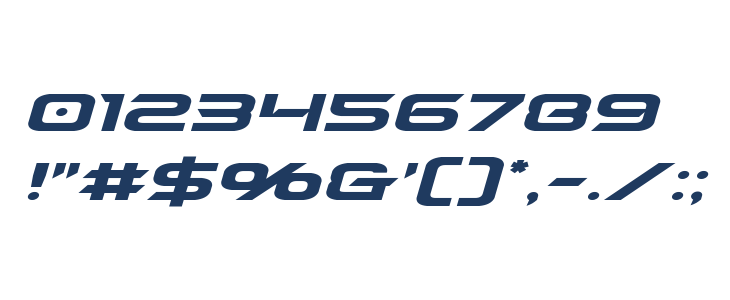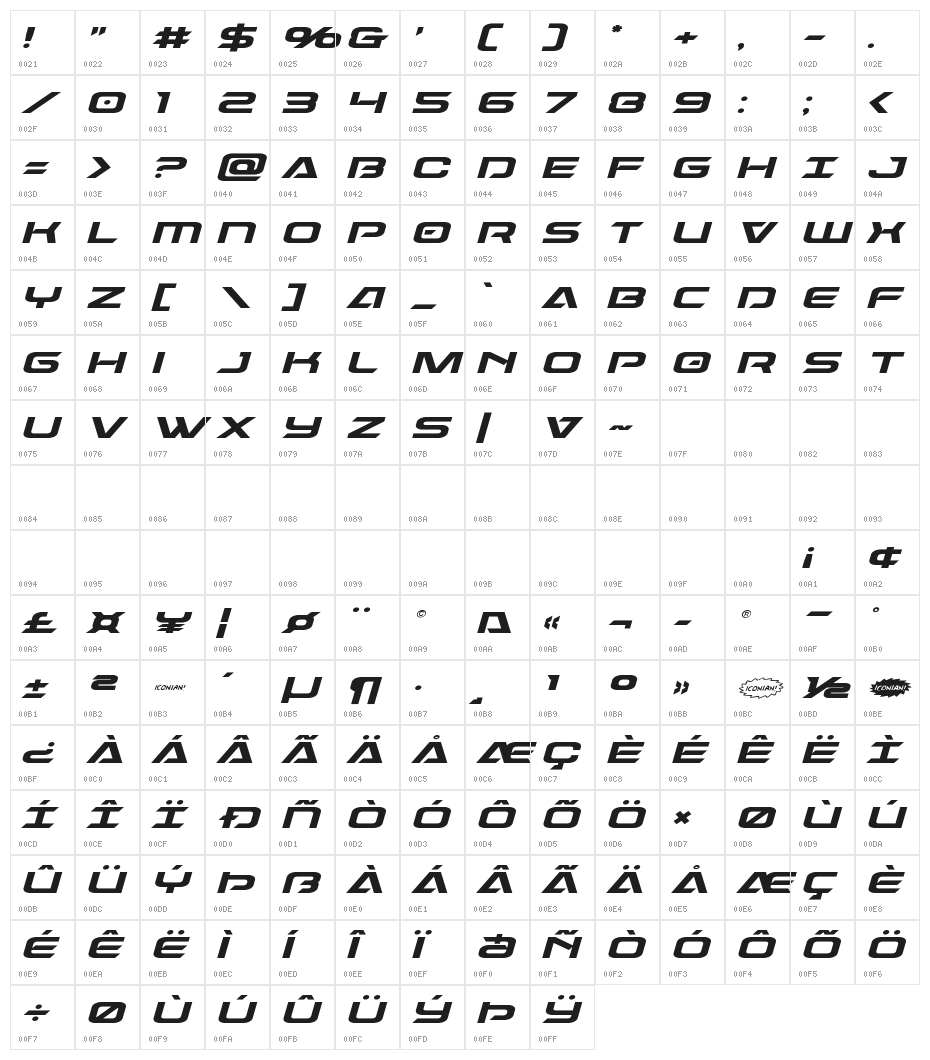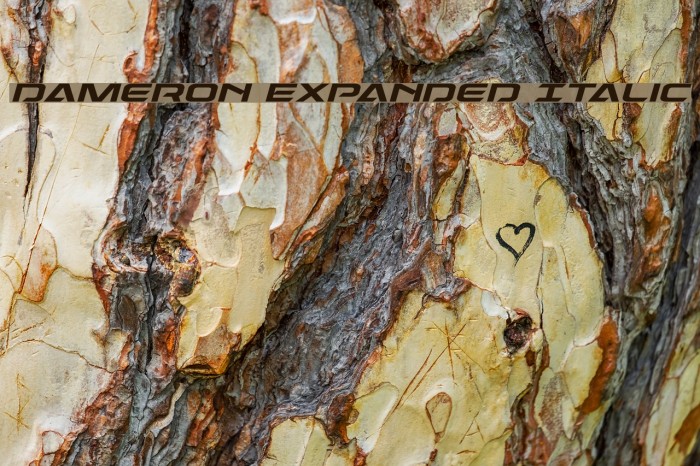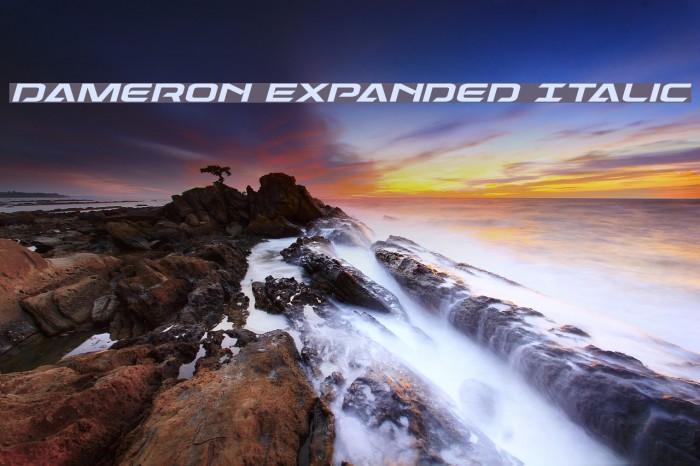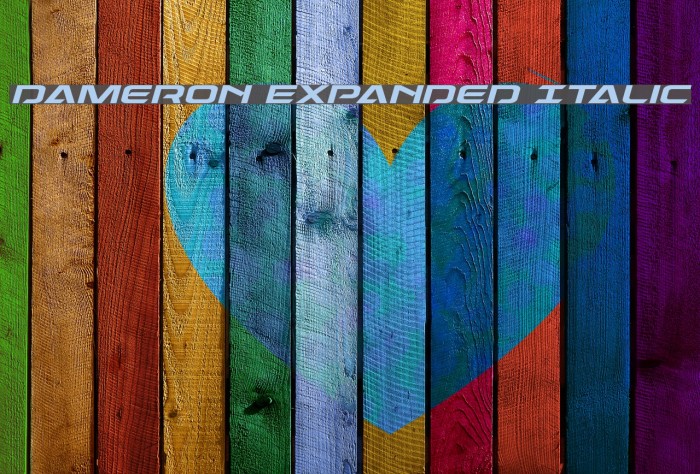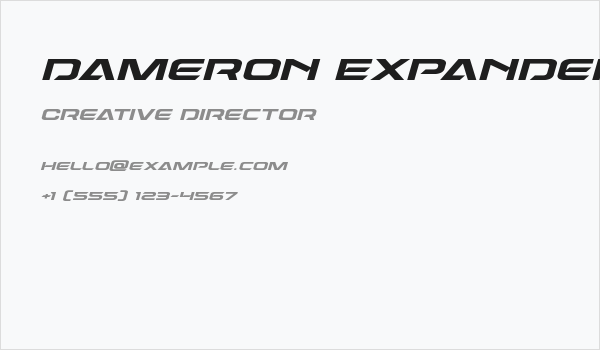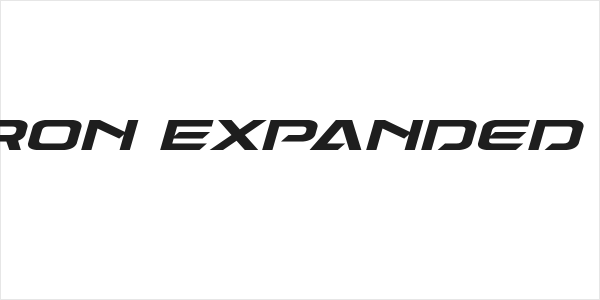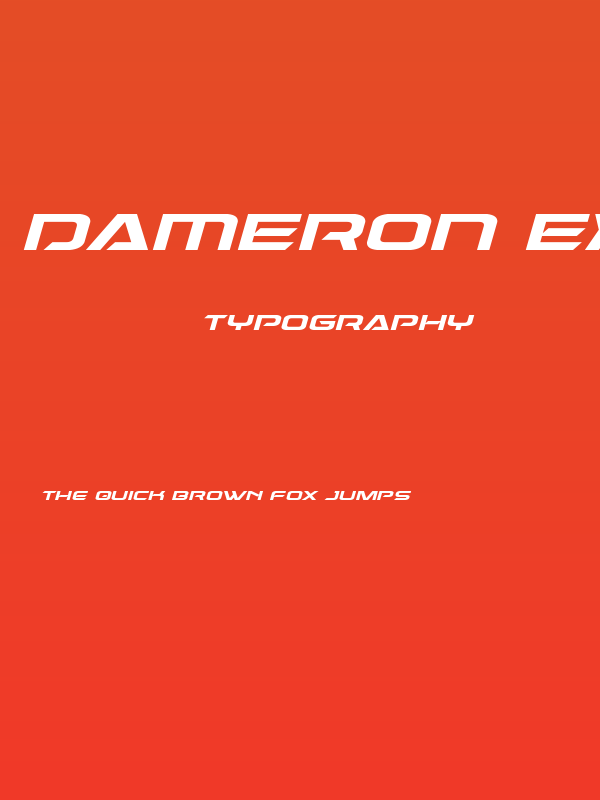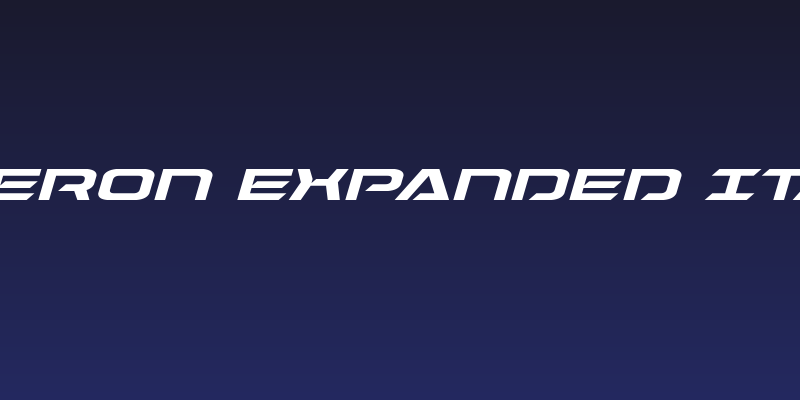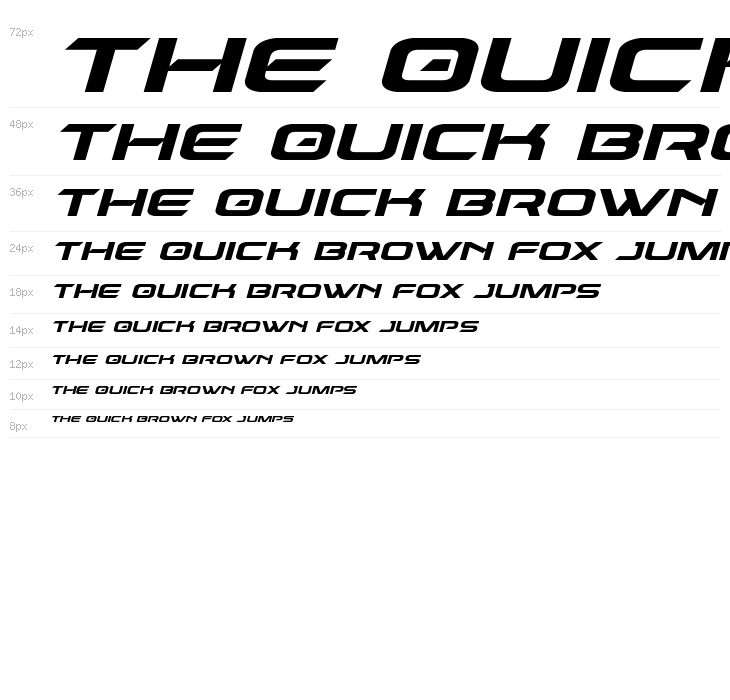
Dameron Expanded Italic Font
Dameron Expanded Italic Description
This font features a sleek, modern design with an expanded and italicized style. The characters are bold and slightly slanted, giving a sense of motion and dynamism. The strokes are consistent in thickness, providing a uniform appearance across all characters. The font includes uppercase letters, numbers, and a variety of special characters, making it versatile for different uses. Its futuristic and tech-inspired aesthetic makes it suitable for projects that require a contemporary and cutting-edge look.
| Proposed Projects | Ideal for tech branding, futuristic designs, sports team logos, and dynamic advertising materials. |